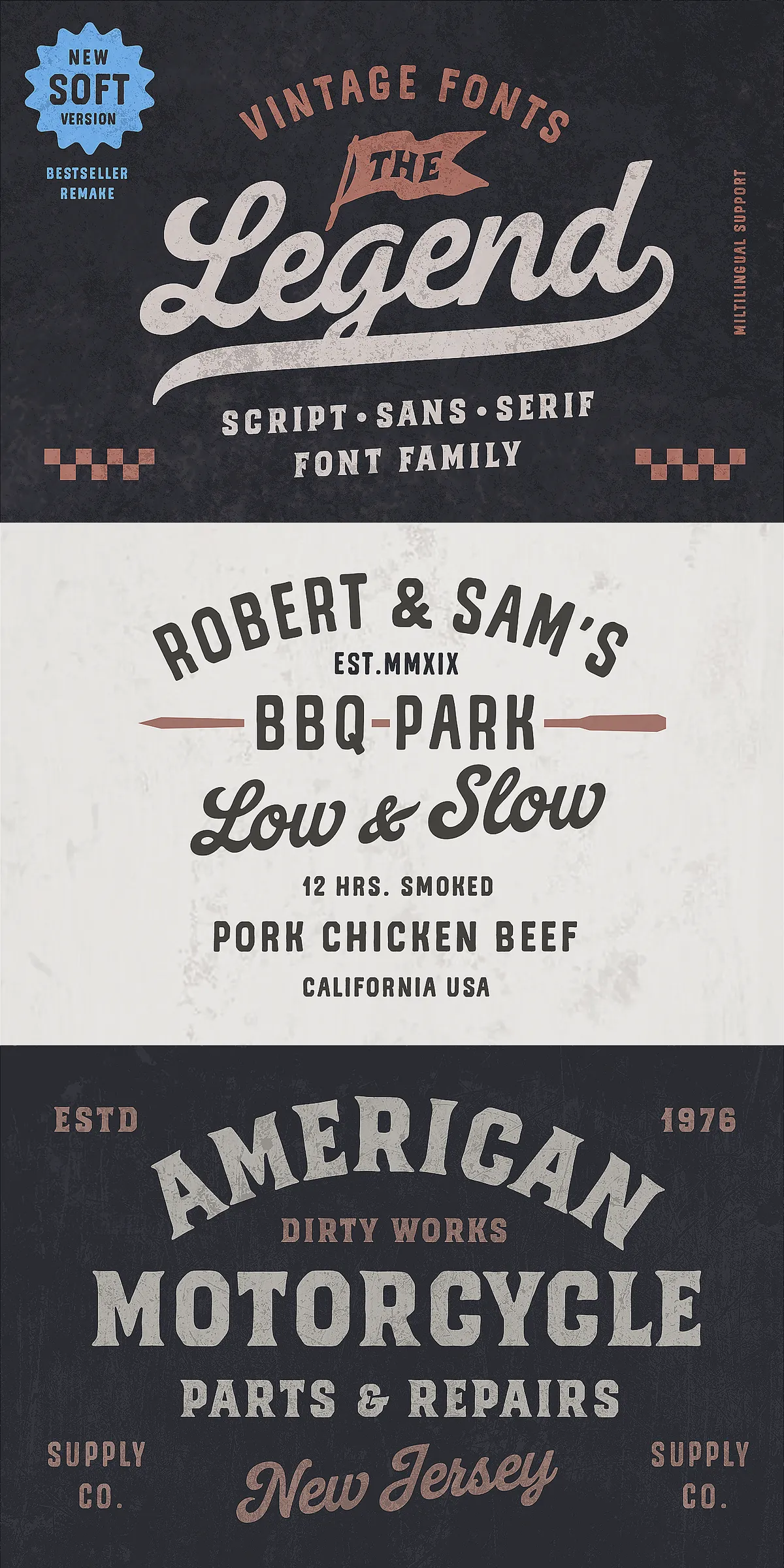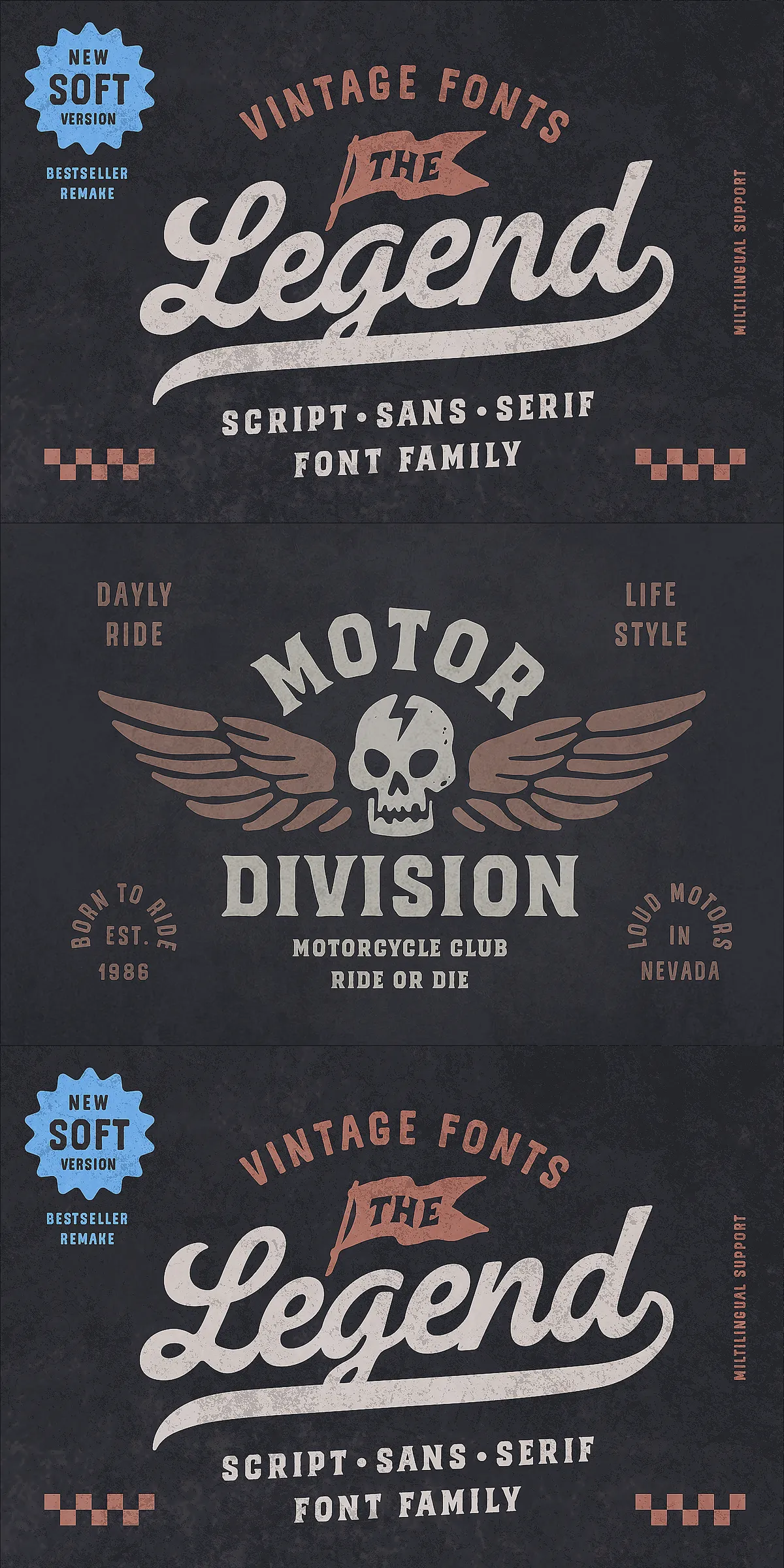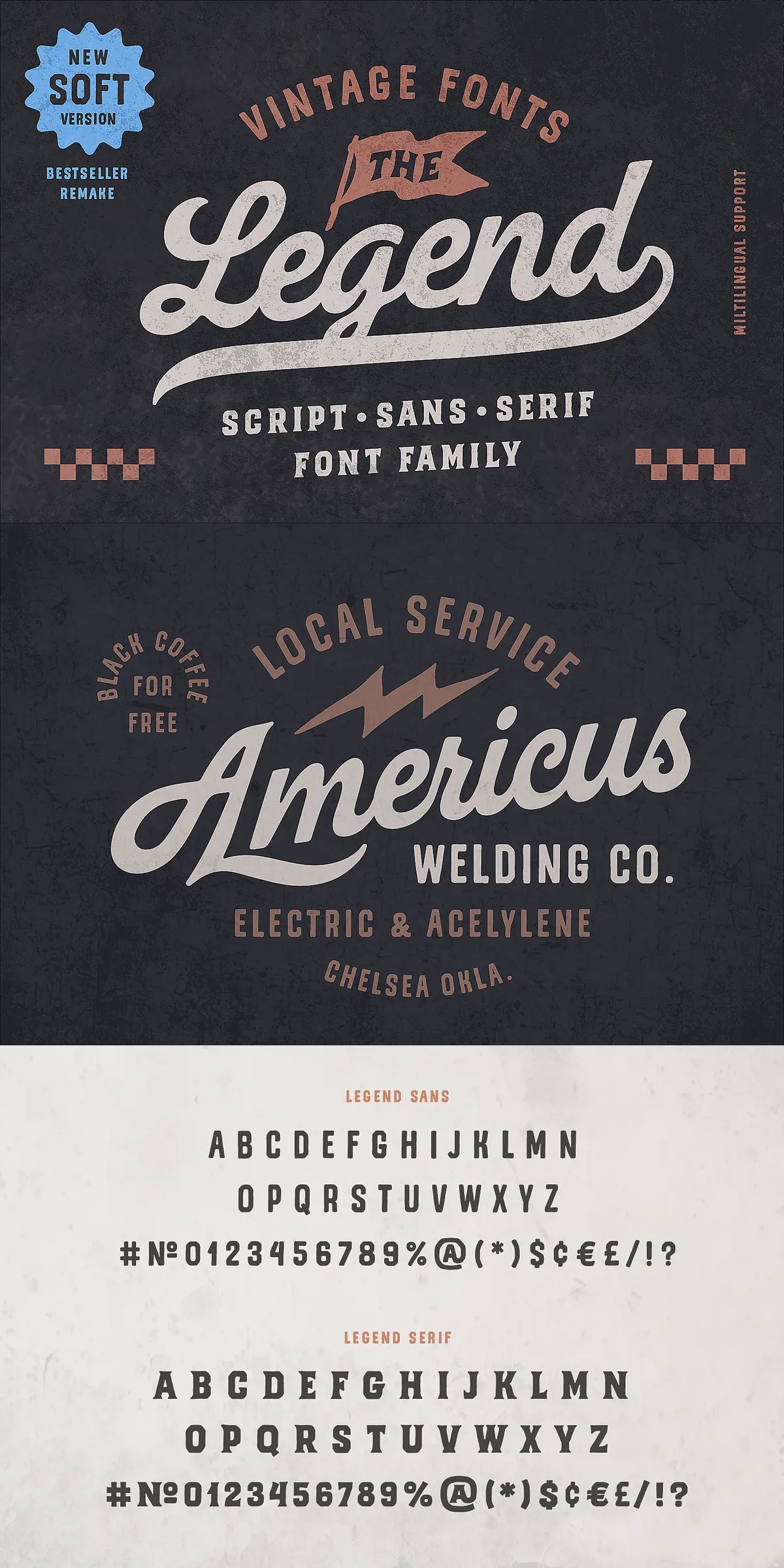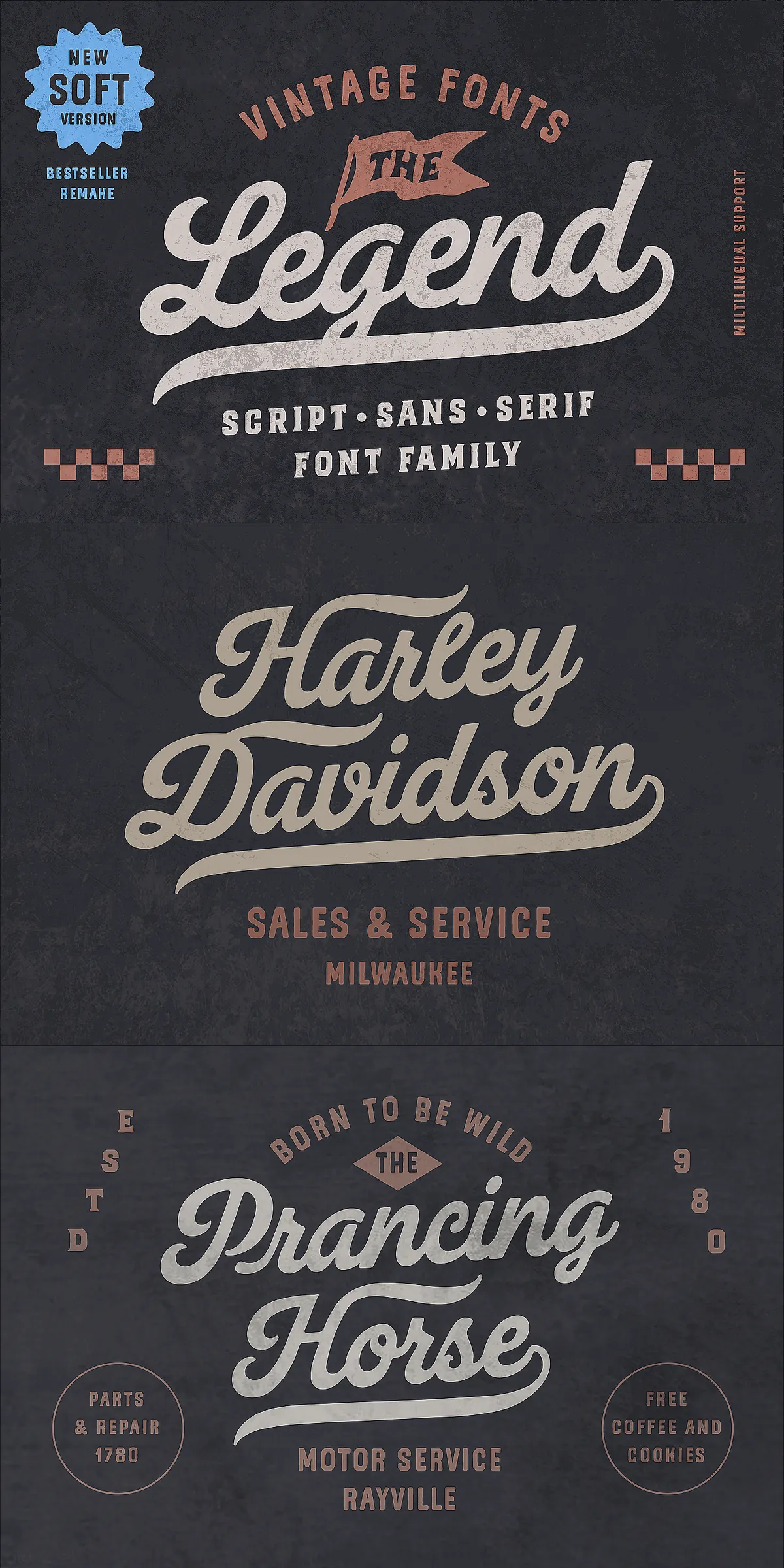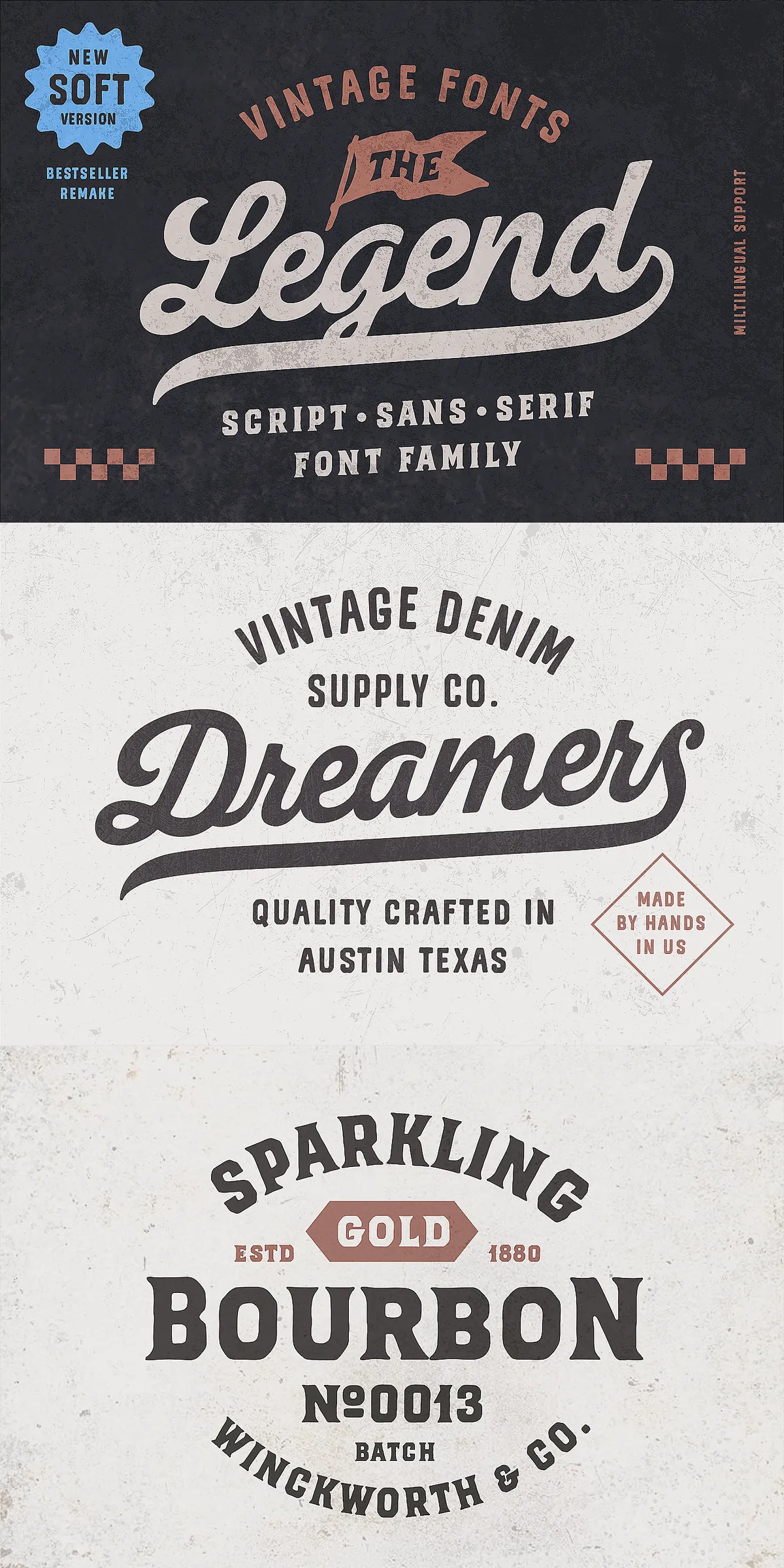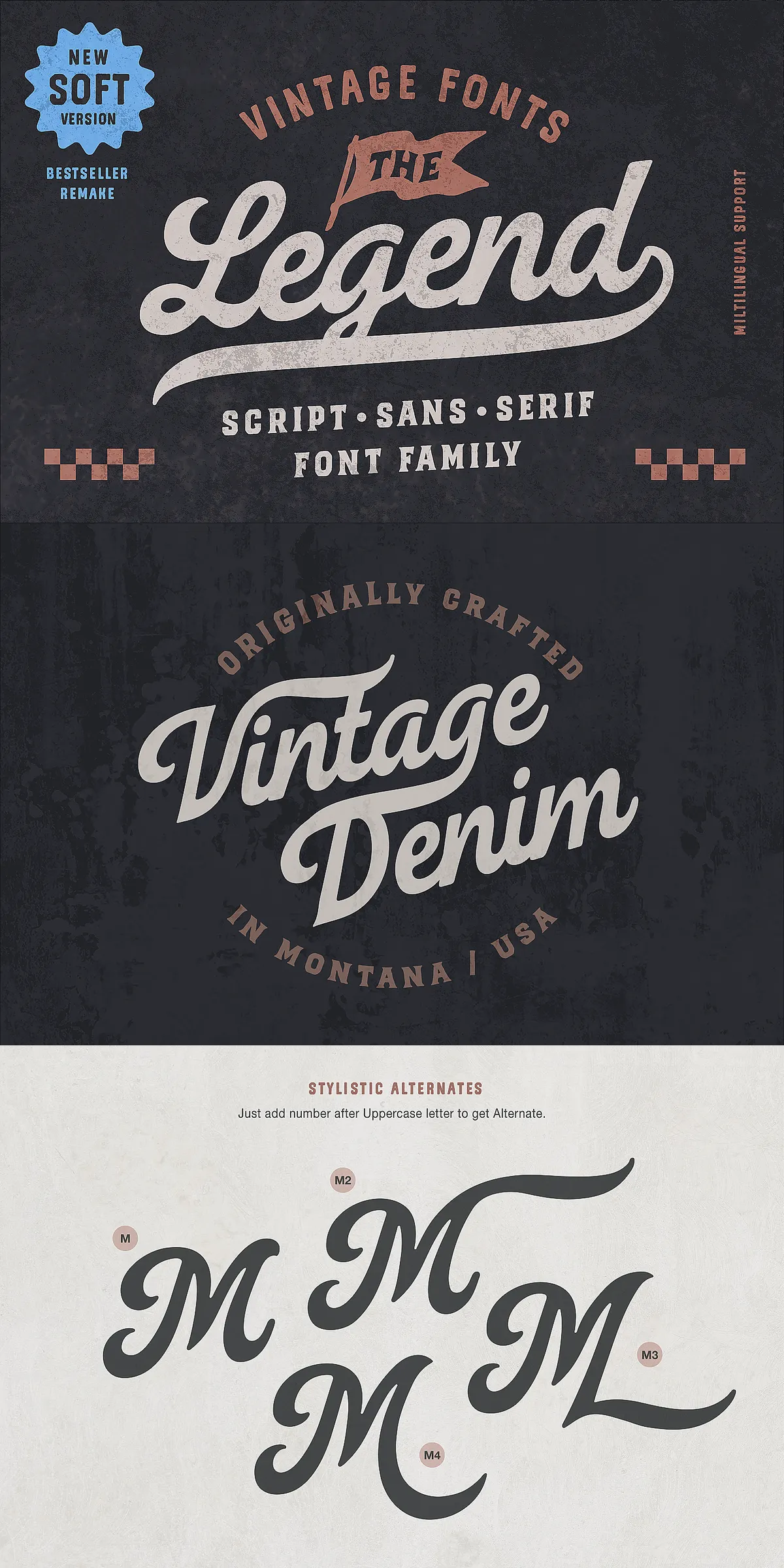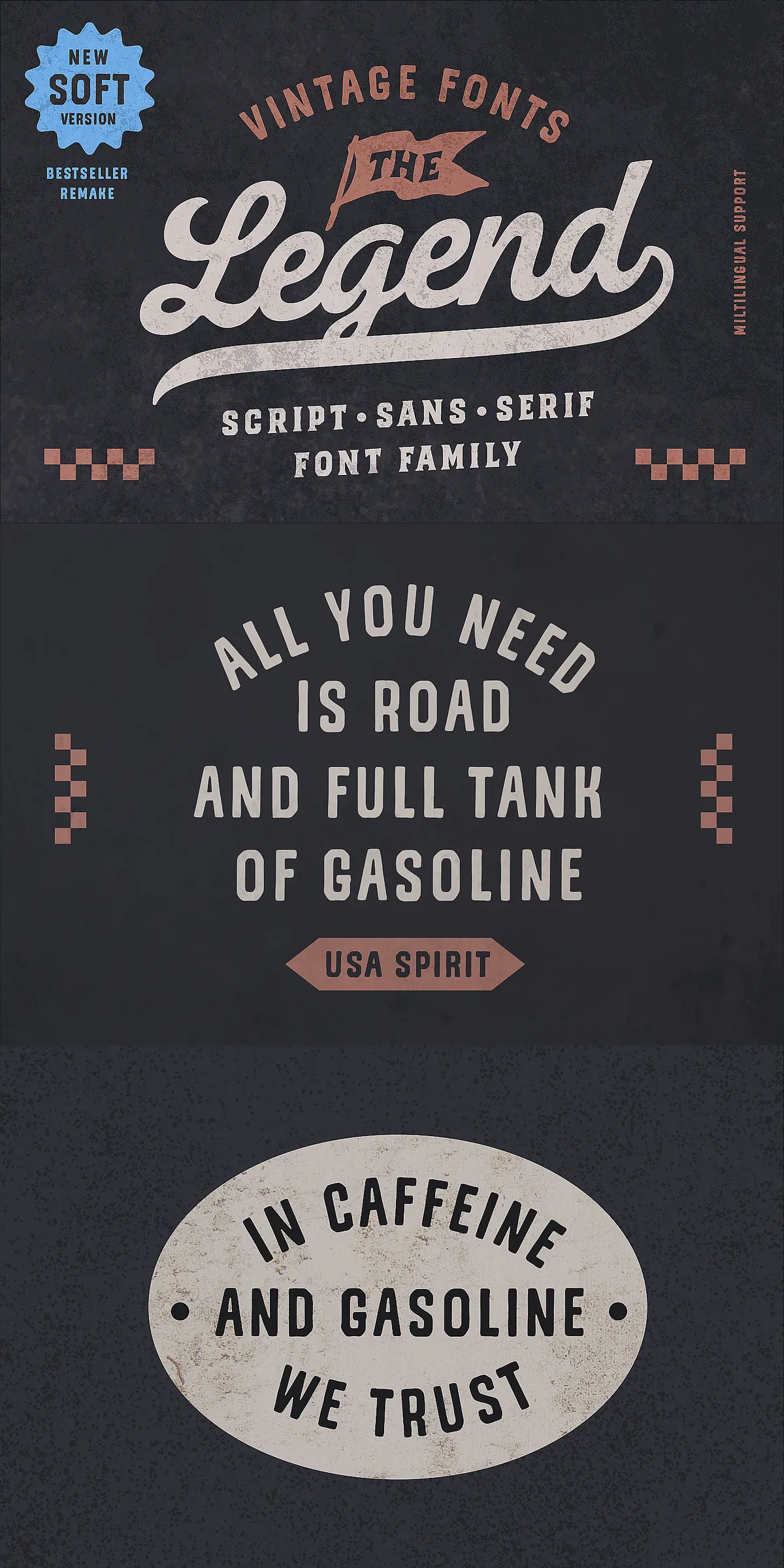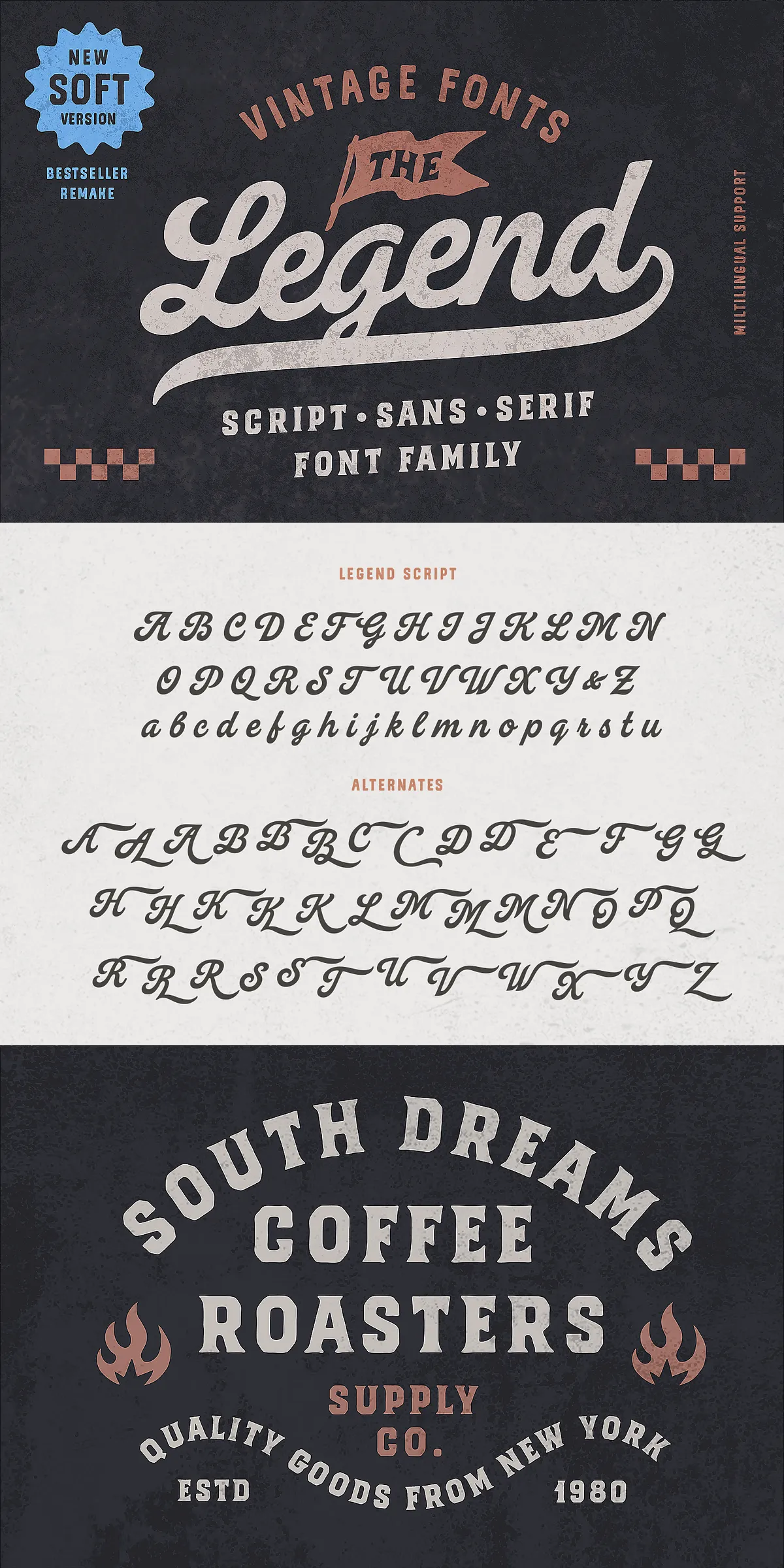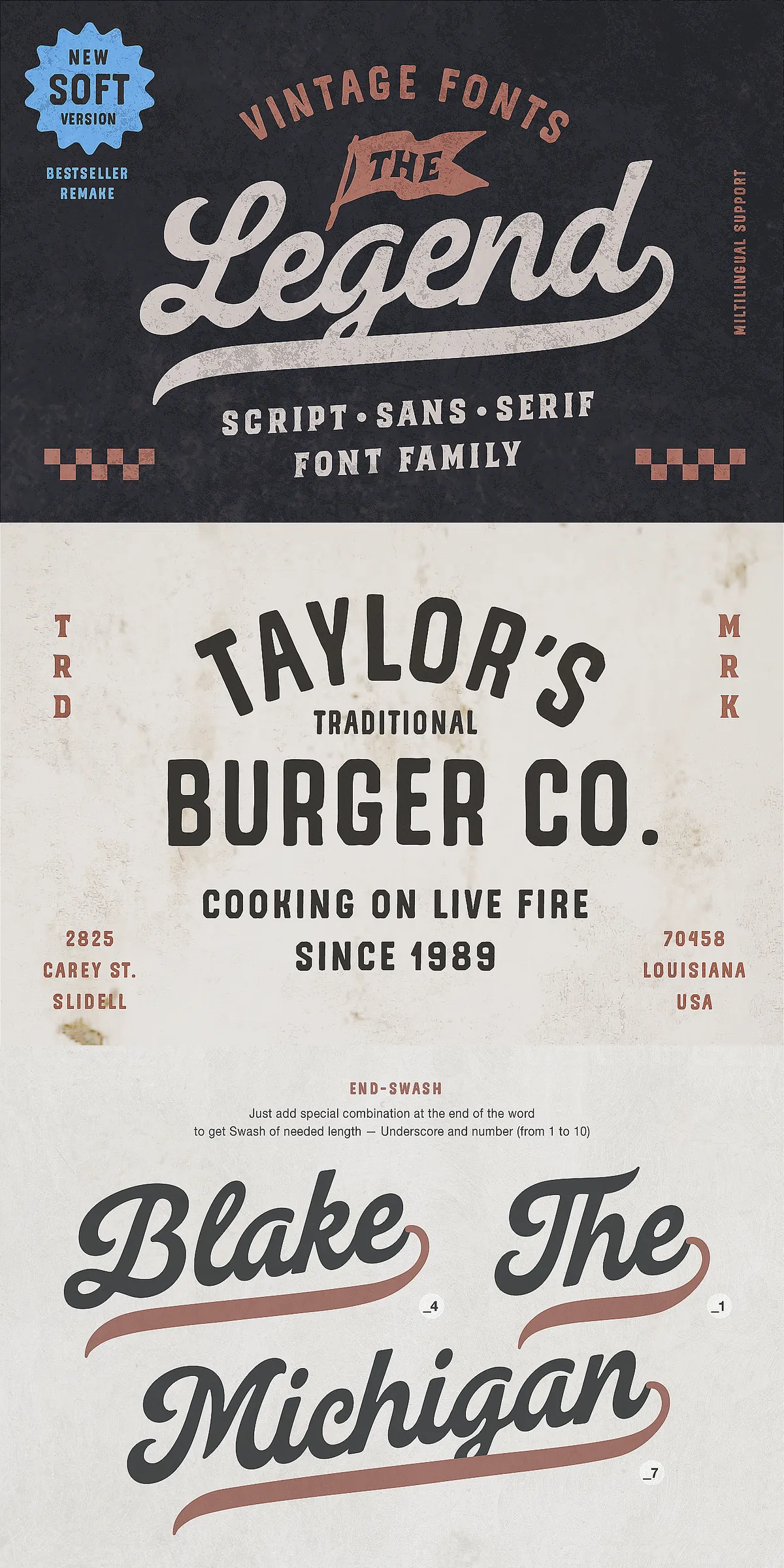
Legend Font is an expertly handcrafted typeface family inspired by the rich heritage of traditional American typography and the adventurous lifestyle it represents. This font family merges three distinct styles—Script, Sans, and Serif—designed meticulously to work together harmoniously, offering a powerful vintage aesthetic that resonates with passion and authenticity.
Deeply Rooted in American Lifestyle and Tradition
The Legend Font uniquely captures the spirit of those who embrace the open road and the great outdoors. This font family echoes the rugged charm of individuals who live for freedom, value hard work, and carry the distinct scent of gasoline and motor oil. Their worn denim and hearty street food culture are reflected visually through this font’s bold, classic design. Every letterform tells a story of resilience, adventure, and grounded authenticity.
The Perfect Typeface for Vintage and Retro Projects
Legend Font excels in delivering vintage-style lettering suitable for various creative applications. It is an ideal choice for designing logos, signage, shop fronts, product labels, t-shirts, and packaging that desire a nostalgic yet robust appearance. Its versatility ensures that whether you are targeting heritage brands, lifestyle products, or vintage-themed campaigns, Legend Font offers an unmistakable voice with clear character and refined style.
Exceptional Design Combination: Script, Sans, and Serif
This font family integrates Script, Sans, and Serif styles with careful attention to detail and purpose. The Script variant adds elegance and flow, perfect for decorative and expressive typography. The Sans style delivers modern simplicity and clarity, while the Serif option provides a classic, reliable feel. Together, these three styles create a rich typographic palette that can adapt seamlessly to your design needs across headers, captions, body text, and decorative elements.
Flexible and Cohesive for Comprehensive Branding
Because all three font styles are designed to complement one another, you gain a cohesive visual identity across all your materials. Use Legend Font’s Script style for highlights and accents, Sans for clean textual content, and Serif for emphasis and tradition. This layered approach enhances brand storytelling and enriches user engagement by maintaining a consistent yet dynamic look.
Robust Multilingual Support for Global Reach
Legend Font supports a wide range of languages, making it perfect for international projects or brands targeting diverse audiences. This includes Danish, Dutch, English, Estonian, Faroese, Finnish, French, German, Hungarian, Icelandic, Italian, Norwegian, Polish, Portuguese, Slovene, Spanish, Swedish, and Turkish. Such broad language coverage reflects its meticulous design and usability in worldwide vintage and Americana-inspired designs.
Conclusion: Bring Authentic American Vintage Style to Your Work
In summary, Legend Font is an essential addition for any designer seeking to evoke a strong vintage Americana spirit. Its handcrafted origins, rich stylistic variety, and broad multilingual support empower creative professionals to produce iconic branding, expressive logos, compelling packaging, and memorable signage. Embrace the legacy of American tradition through Legend Font and infuse your projects with genuine nostalgia and rugged charm.